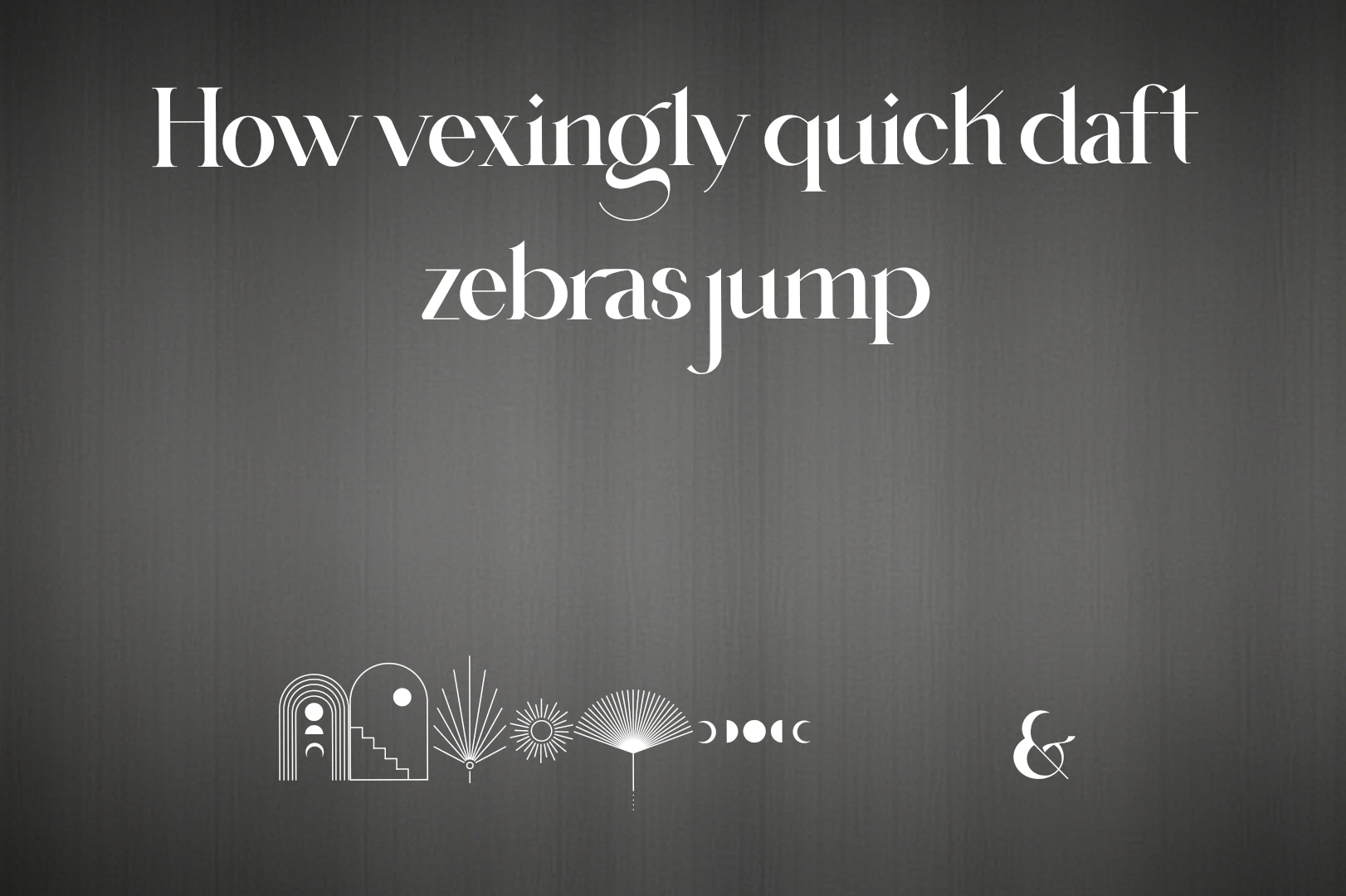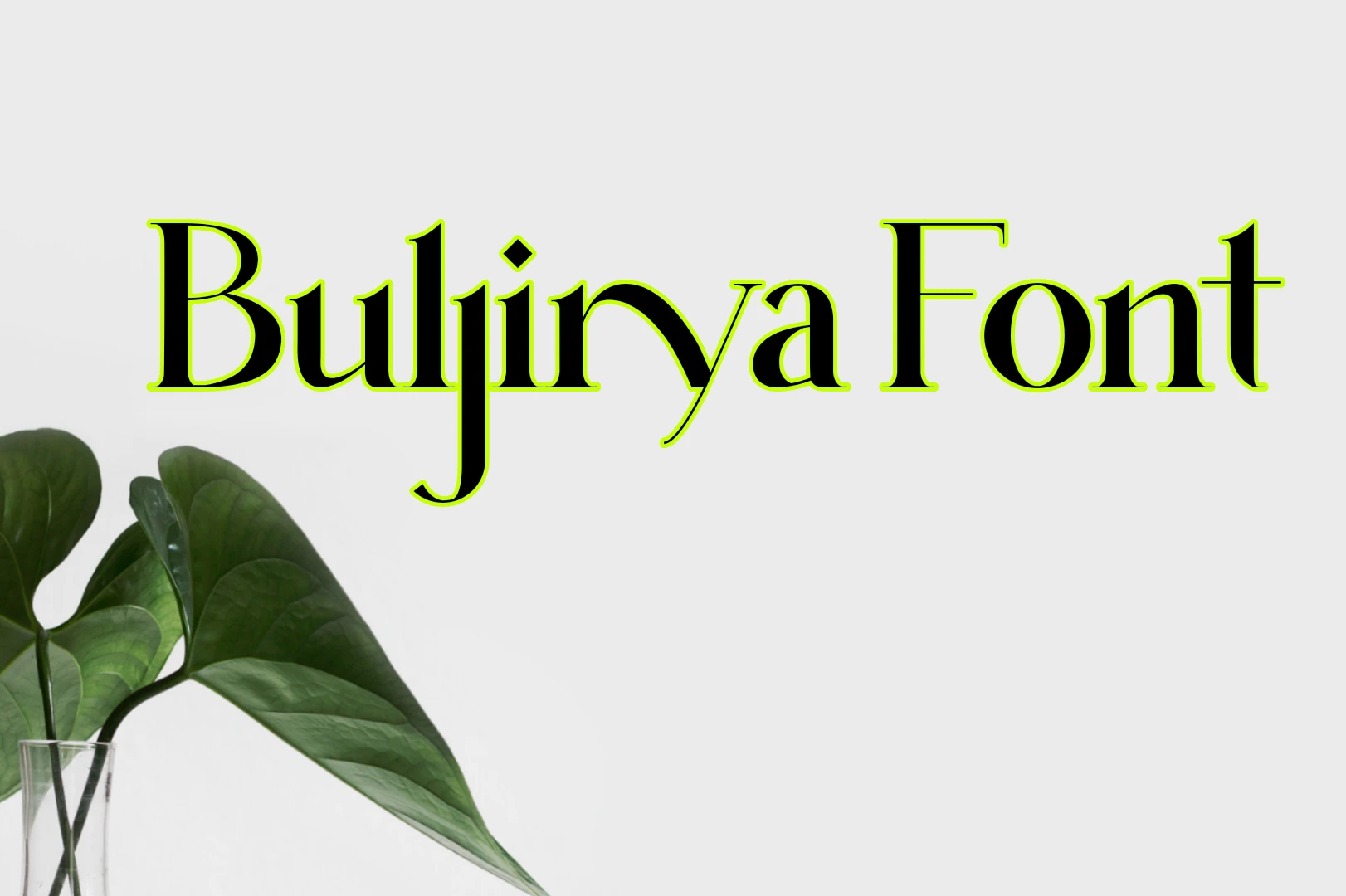
Buljirya Font is a serif font family that was designed by Hishand Studio, a type foundry based in Indonesia. The font features classic serifs and has a slightly condensed design that gives it a sophisticated and elegant appearance.
Usage of Buljirya Font
As a serif font, Buljirya is best suited for use in printed materials such as books, magazines, and newspapers, but it can also be used effectively in digital applications such as websites and apps. It has a classic and timeless design that can give any project a touch of sophistication and elegance.
The font family includes several weights, including regular, italic, bold, and bold italic. It also supports various languages and includes a range of glyphs and characters, making it a versatile font that can be used for projects in multiple languages.
Preview Image of the Buljirya Font
What is the Buljira Font?
It is a unique and stylish typeface known for its elegant and modern design. It’s popular for both print and digital projects, adding a touch of sophistication to any text.
What makes the Buljira Font special?
It stands out due to its unique blend of modern and classic design elements. Its clean lines and stylish curves make it perfect for adding a touch of elegance to any project.
Are there different styles available for the Buljira Font?